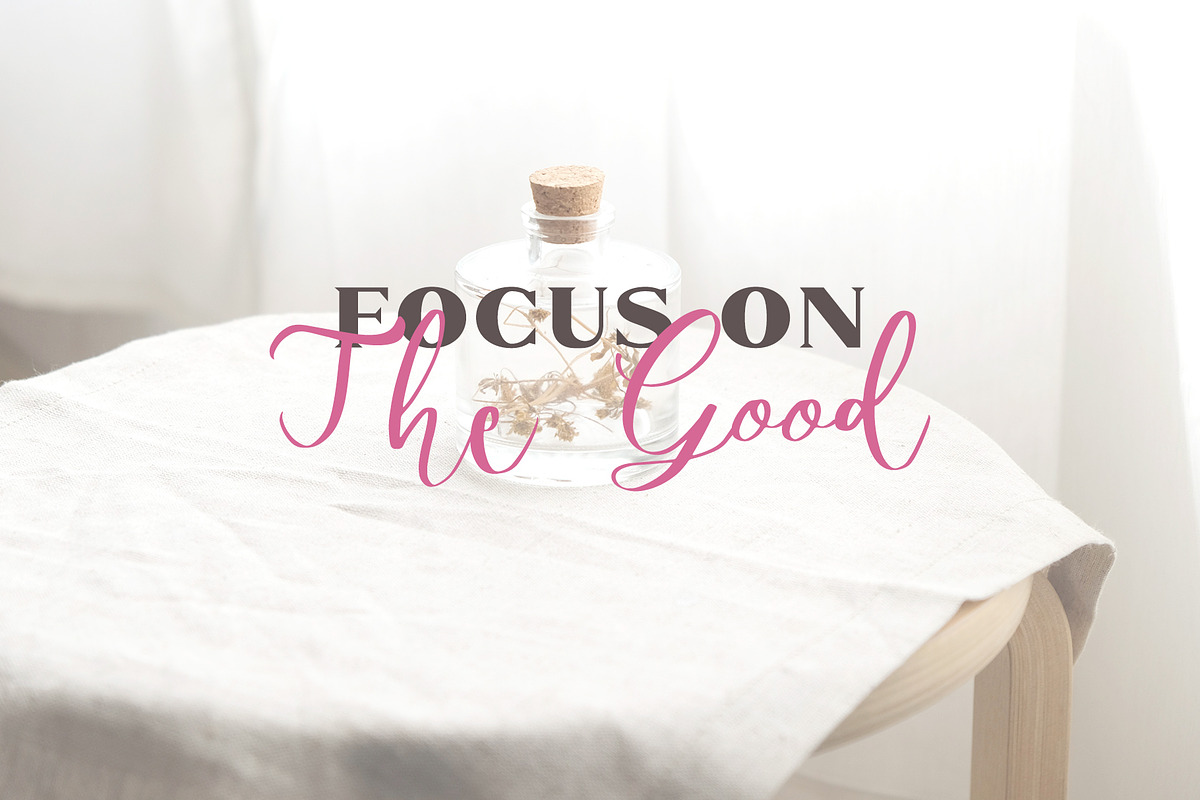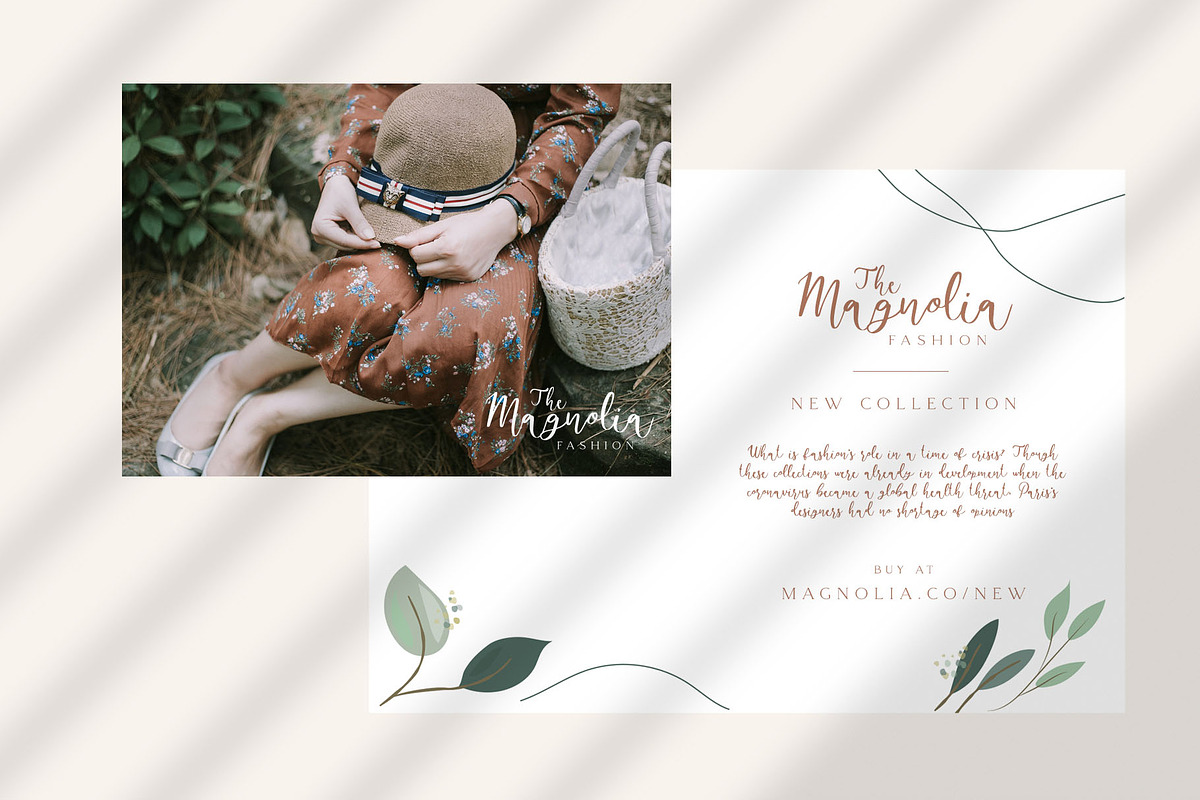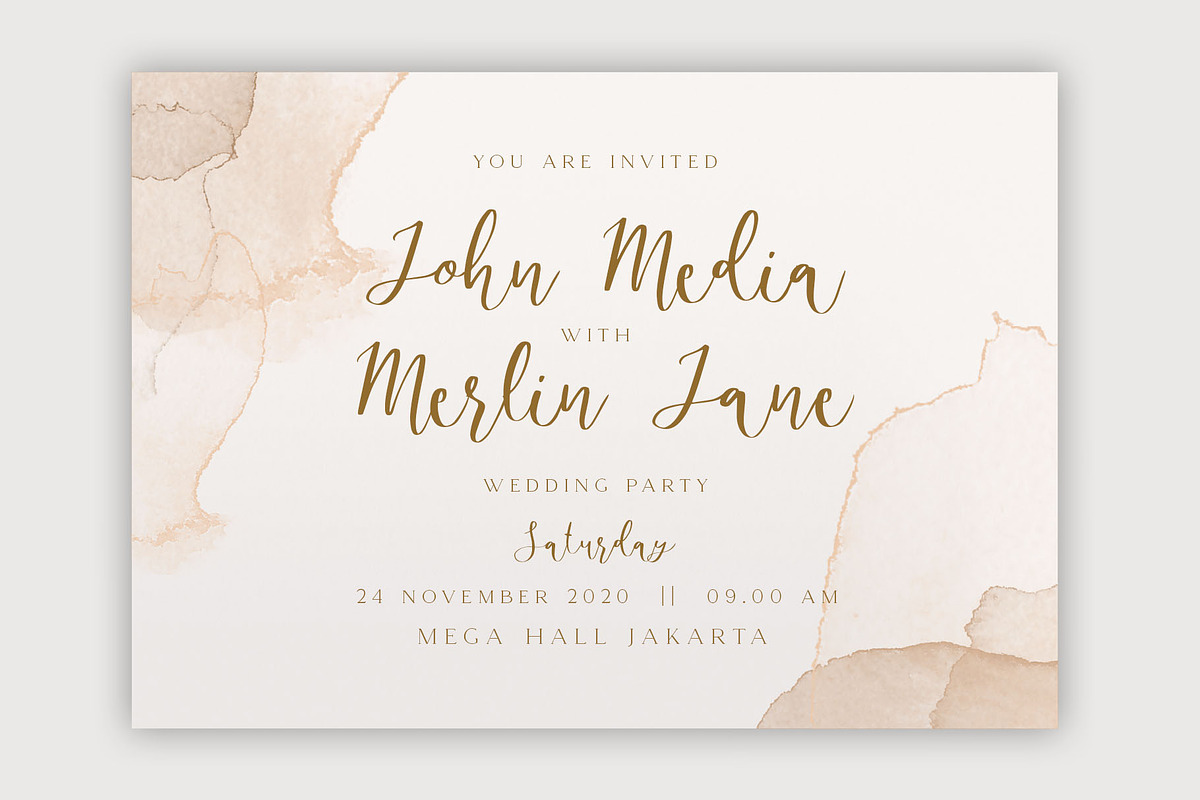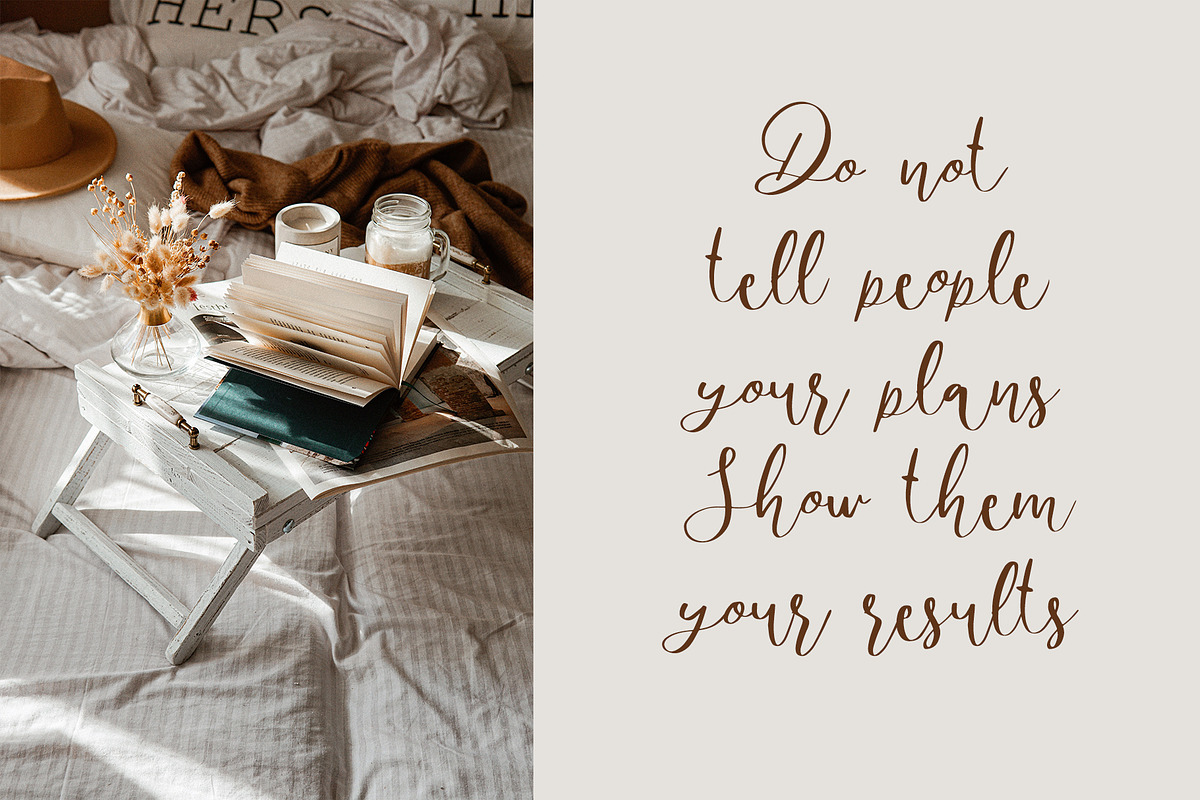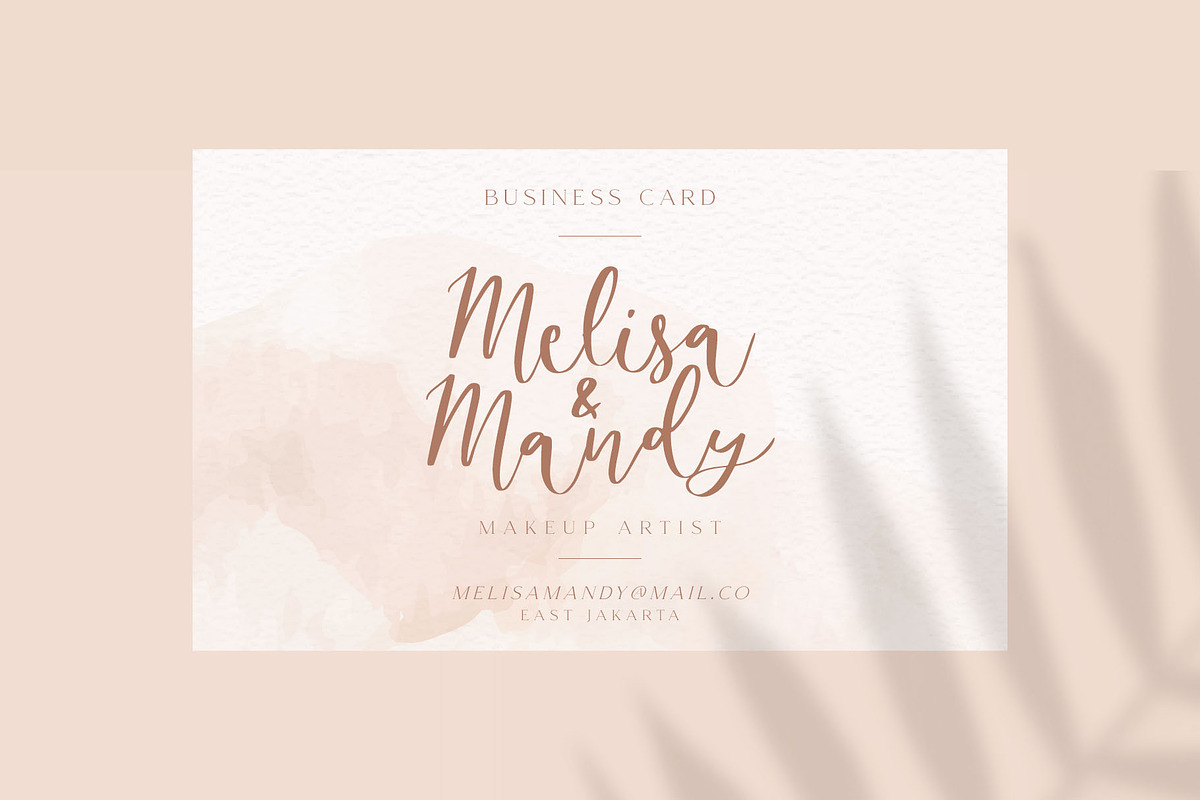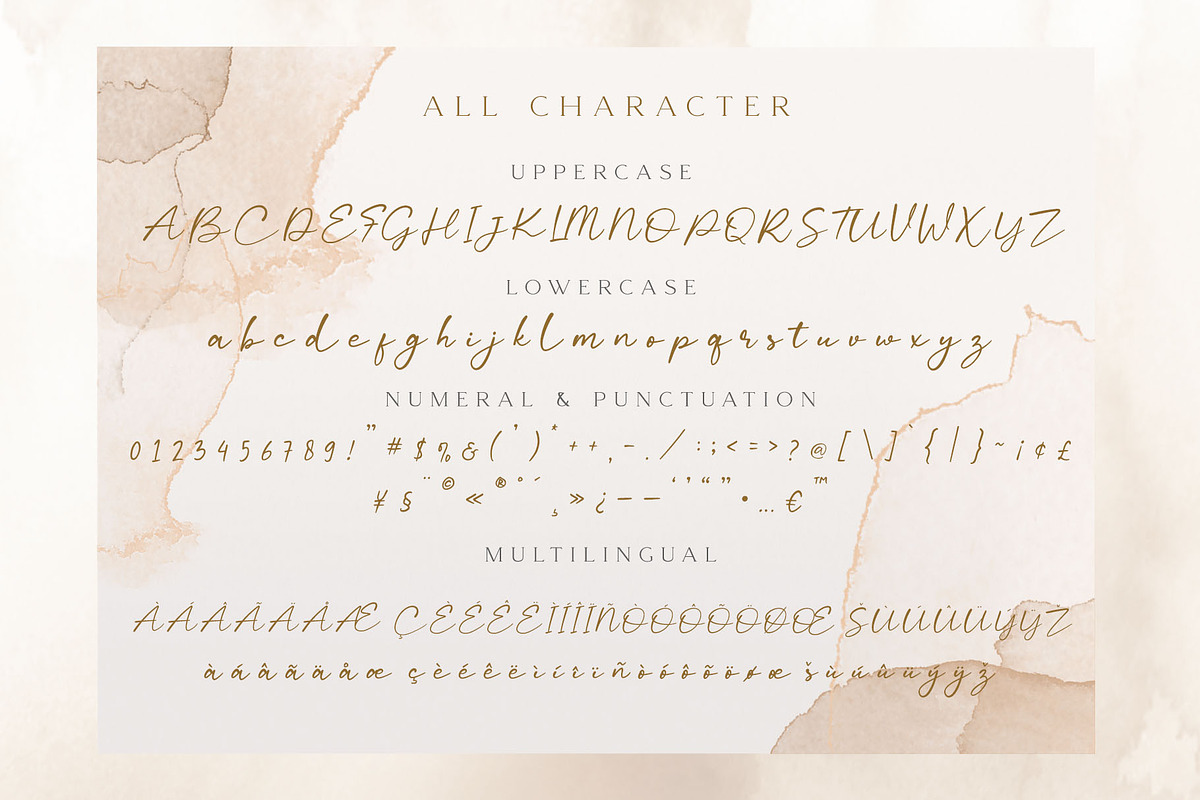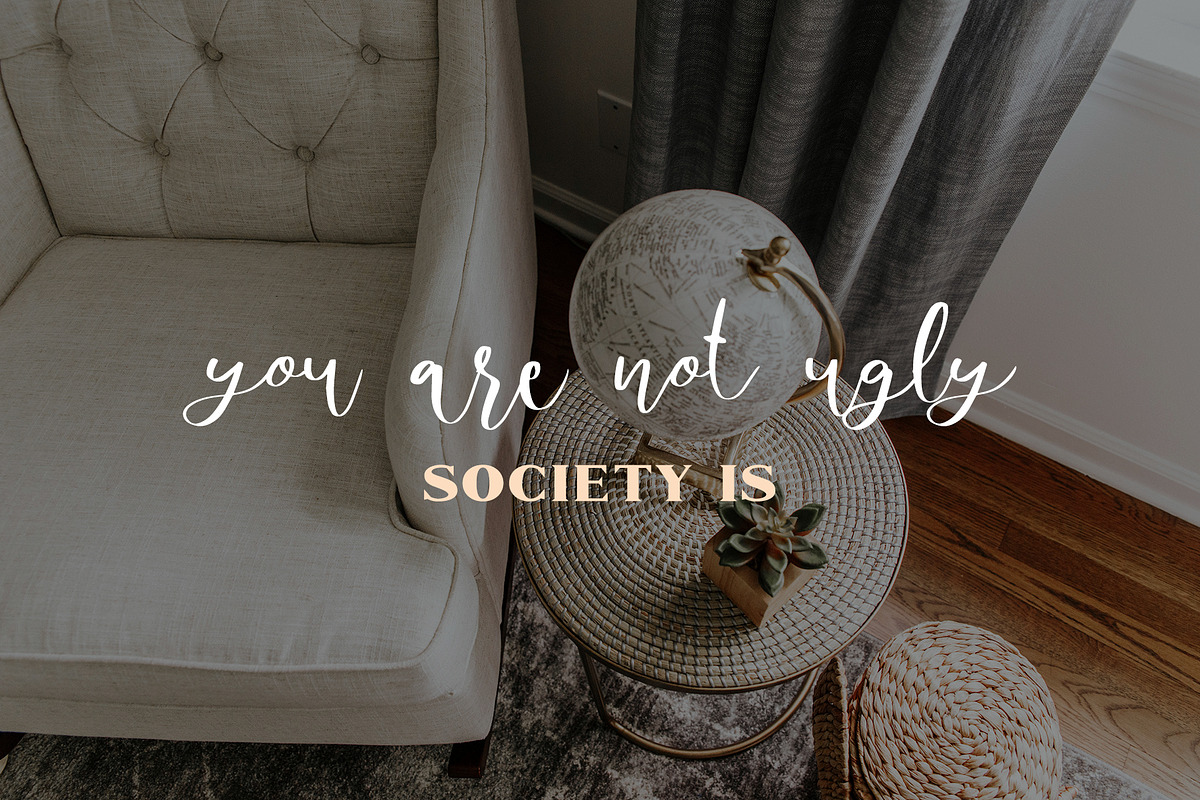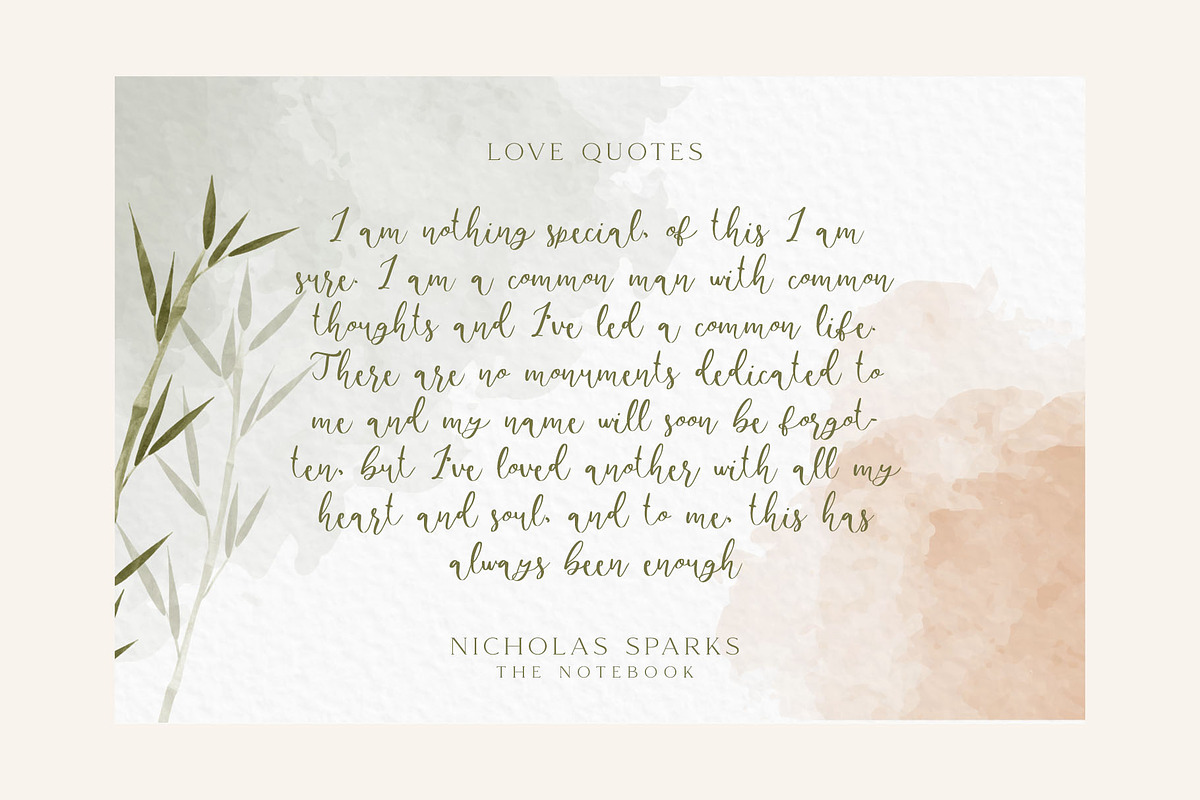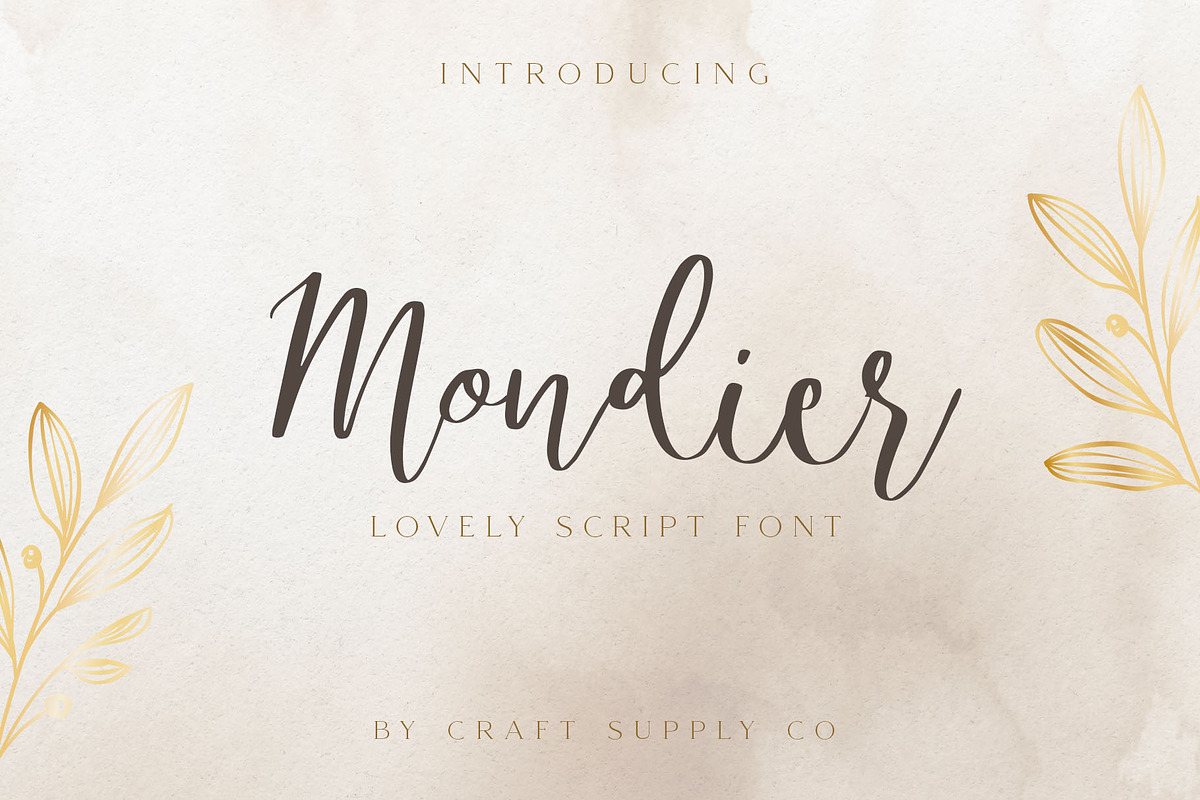
Mondier - Lovely Script Font
Introducing New Font : Mondier - Lovely Script Font
Mondier - Lovely Script Font is an handwritten script font based on the expression of real handwriting. Larissa - A Lovely Script Font will work perfectly for fashion, e-commerce brands, trend blogs, wedding boutiques or any business that wants to appear upscale and chic.
Mondier - Lovely Script Font also Suitable for Logo, greeting cards, quotes, posters, branding, name card, stationary, design title, blog header, art quote, typography, art, modern envelope lettering or book design, happening style like handdrawn design or watercolor design theme, craft design, any DIY project, book title, or any purpose to make your art/design project look pretty and trendy.
- Accents/Multilingual characters (AÀÁÂÃÄÅCÇDÐEÈÉÊËIÌÍÎÏNÑOØÒÓÔÕÖUÙÜÚÛWYÝŸỲŸÆŒßÞ)